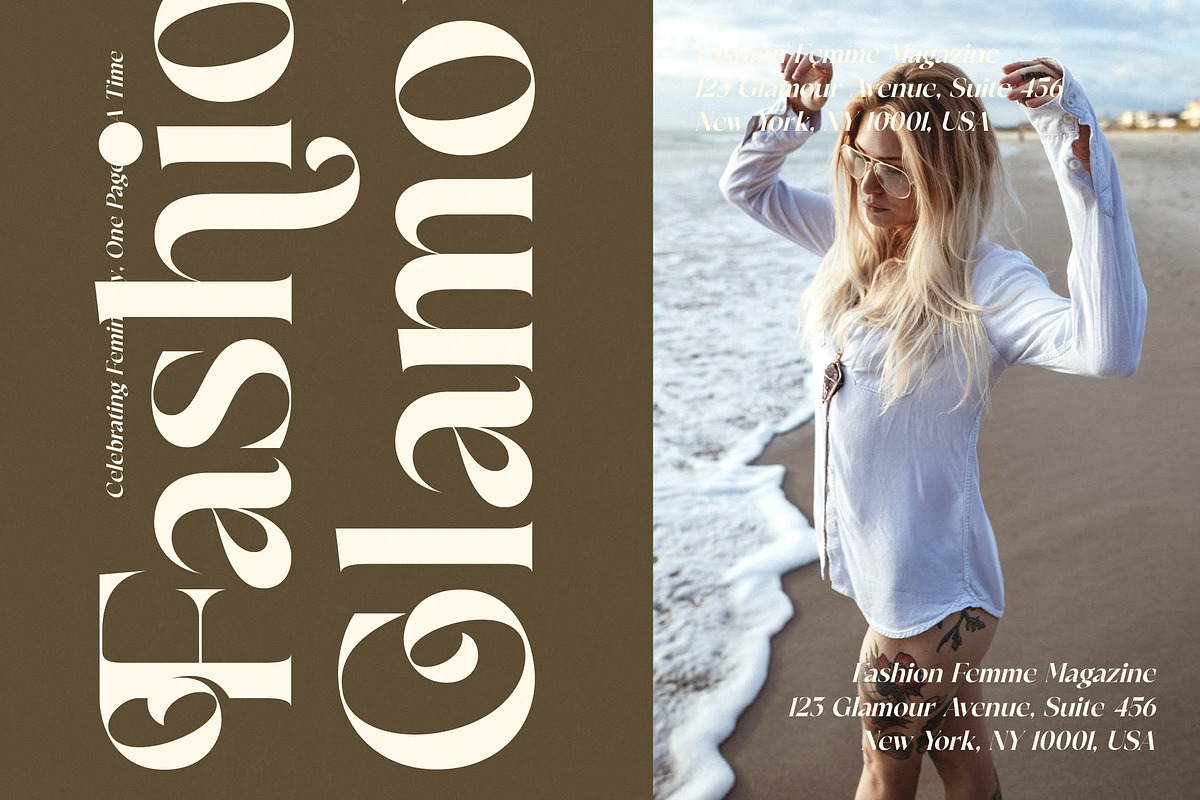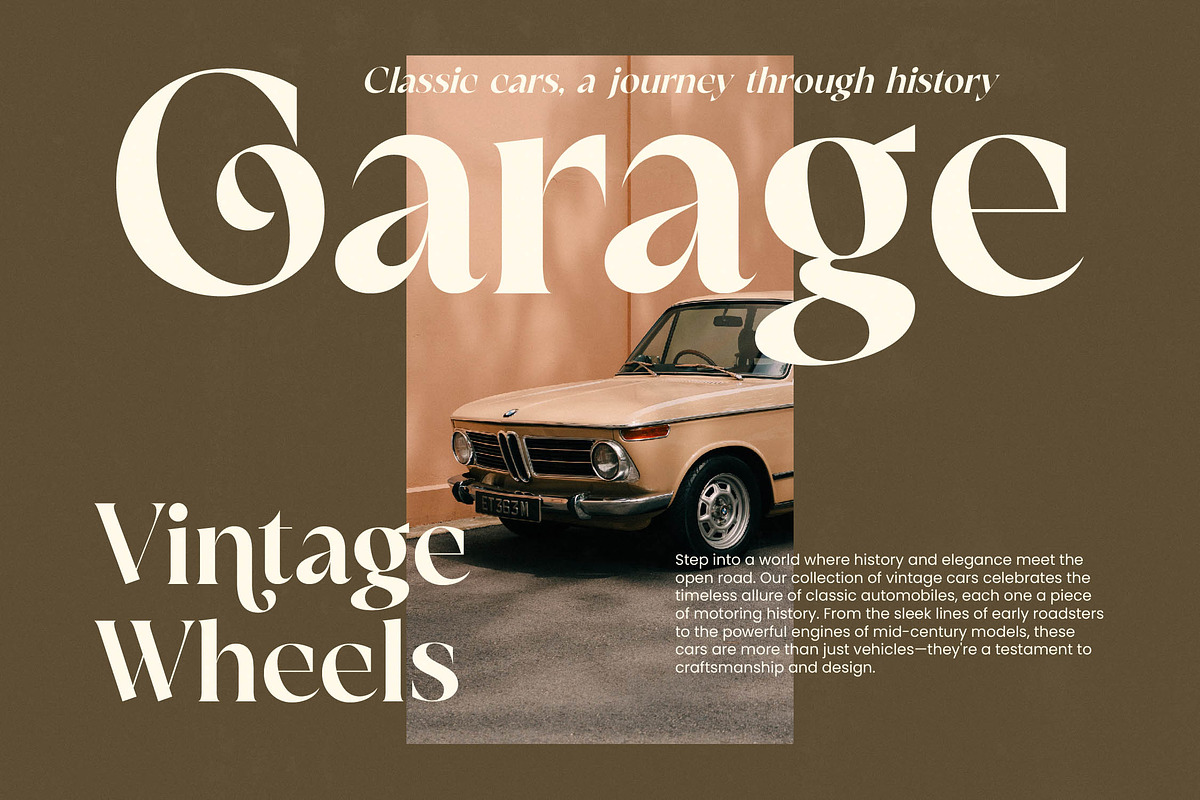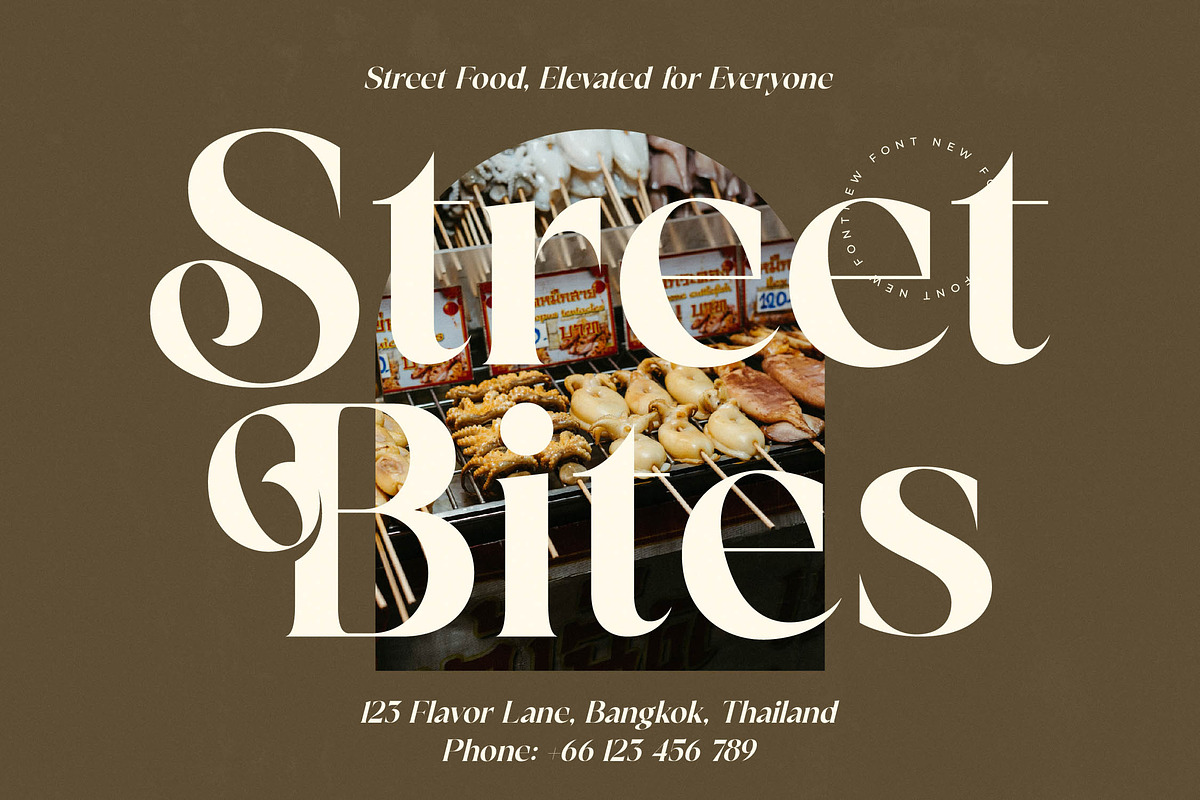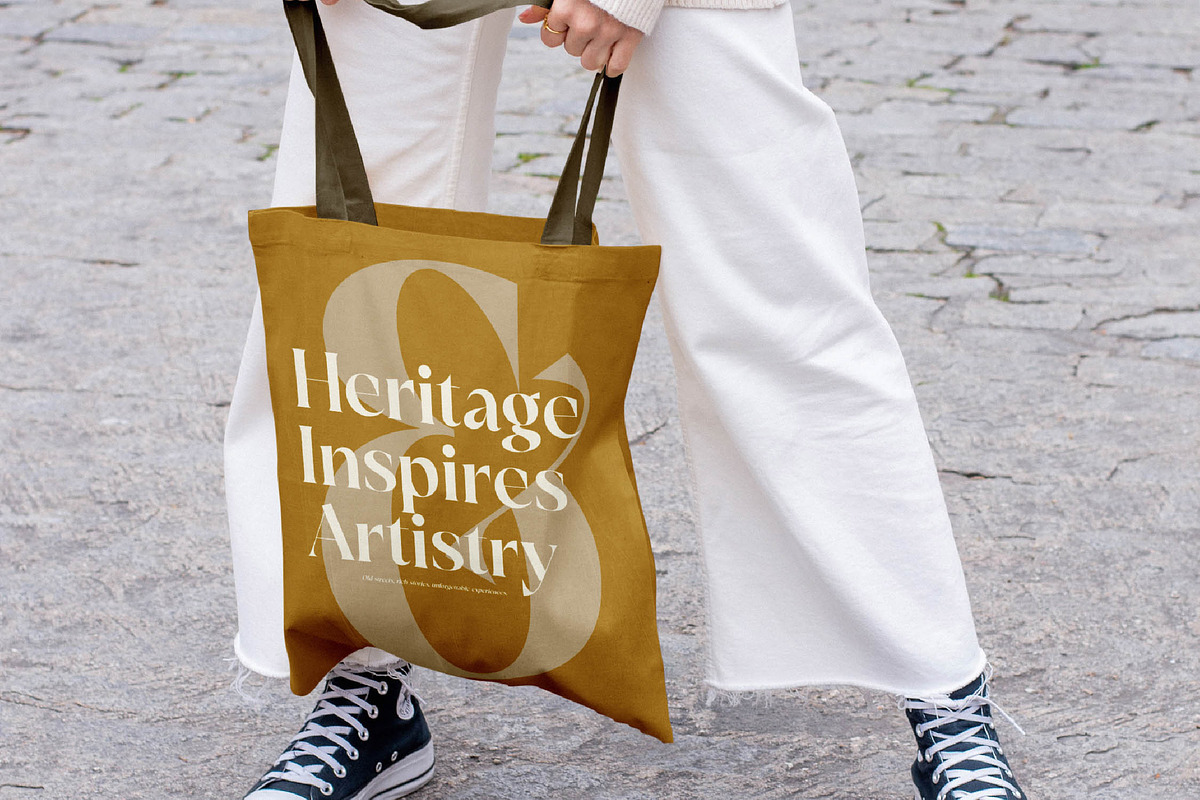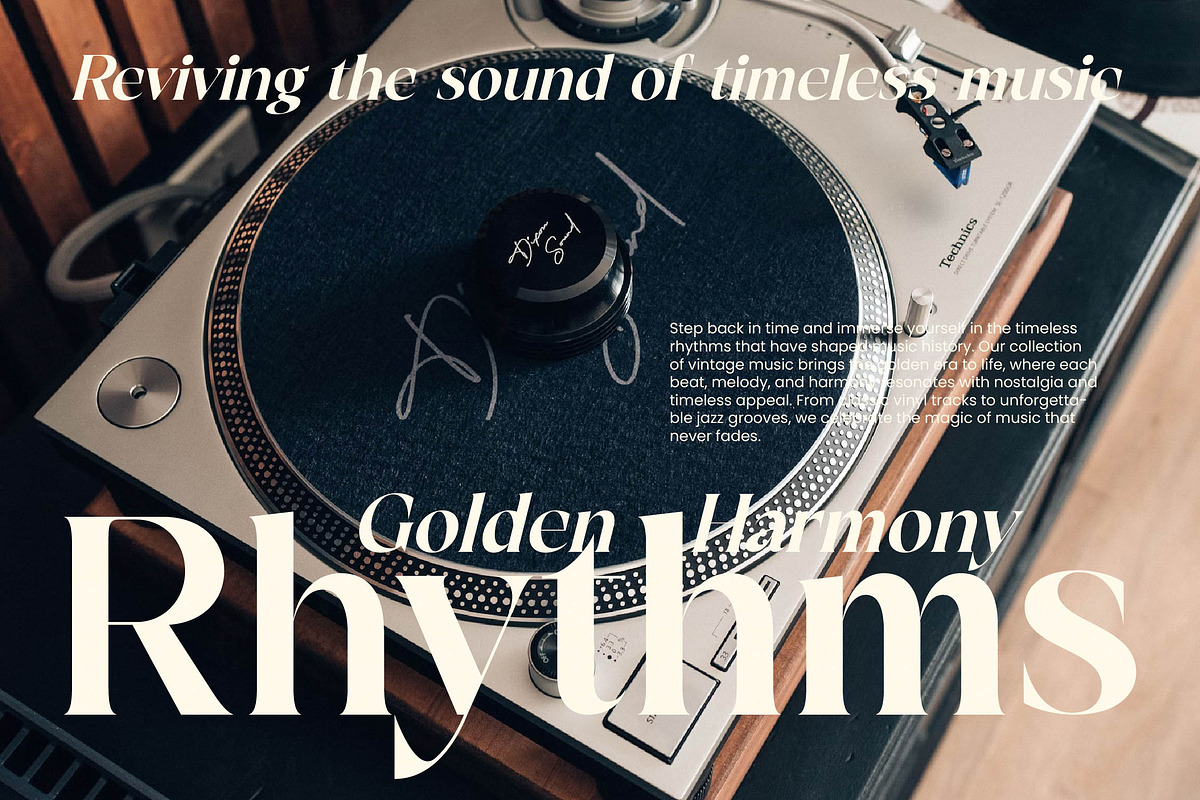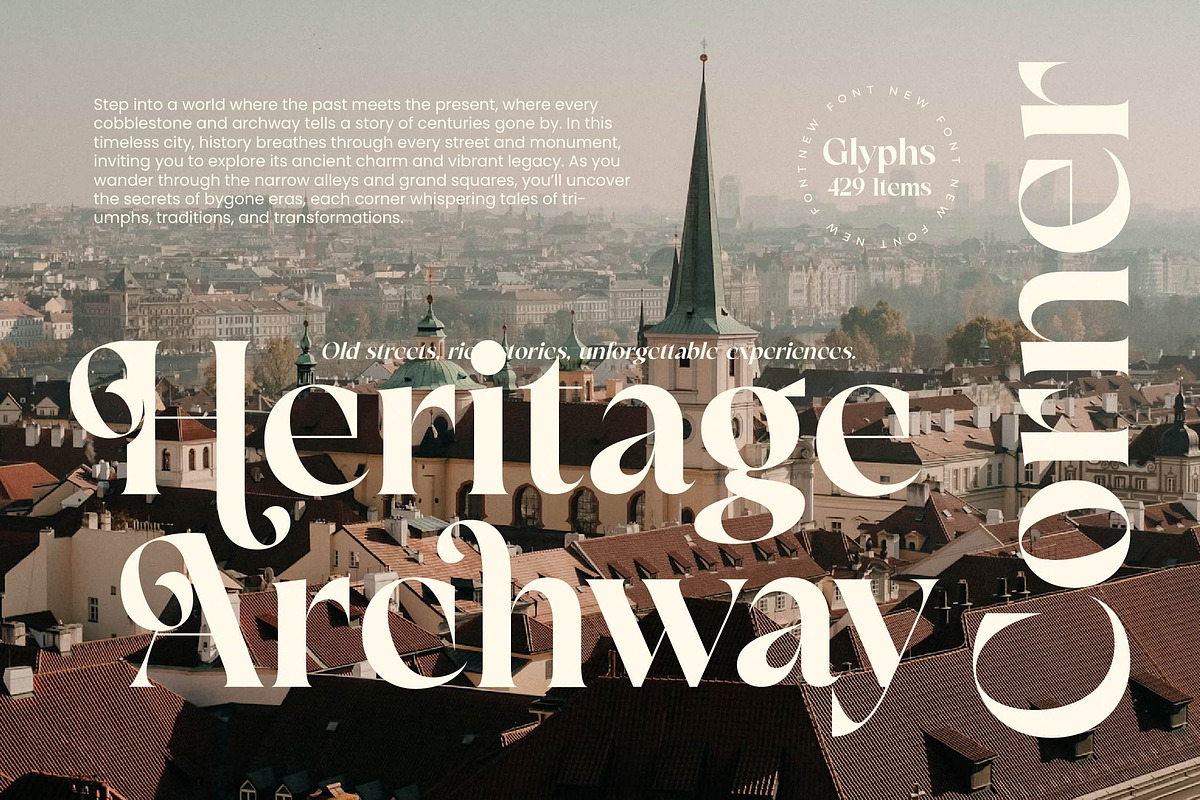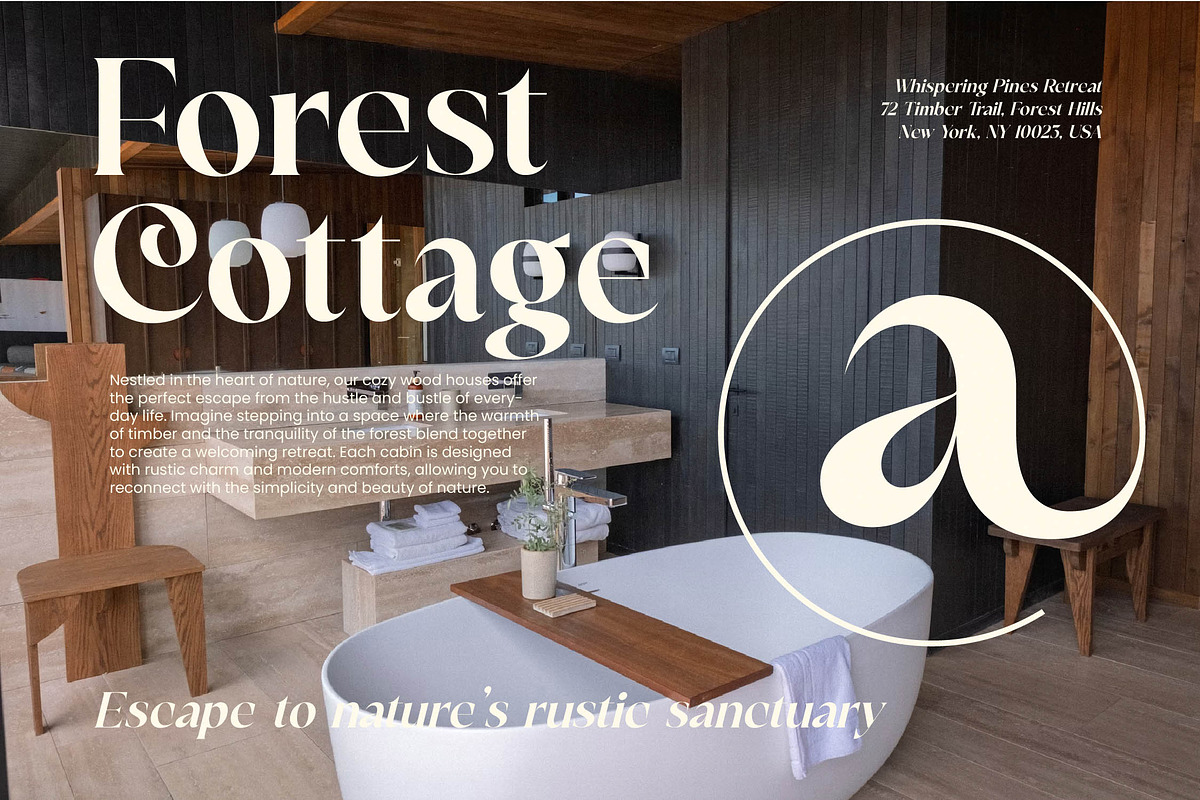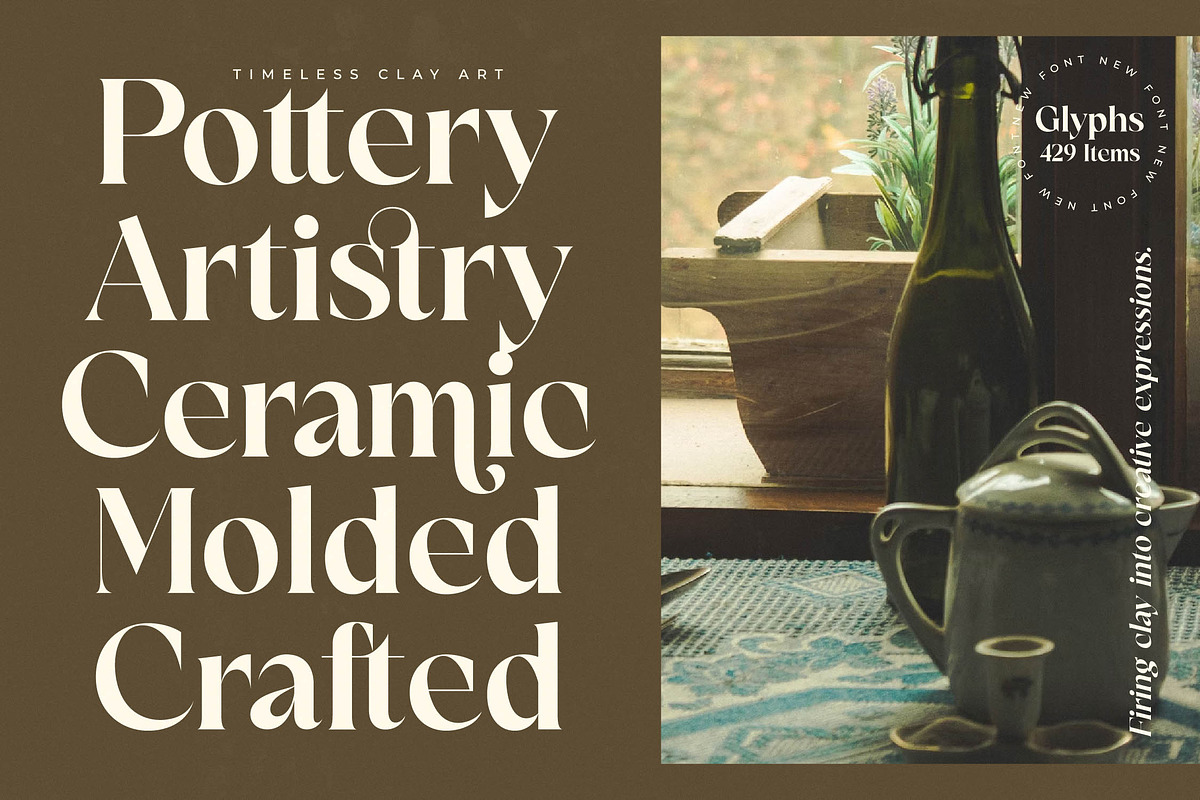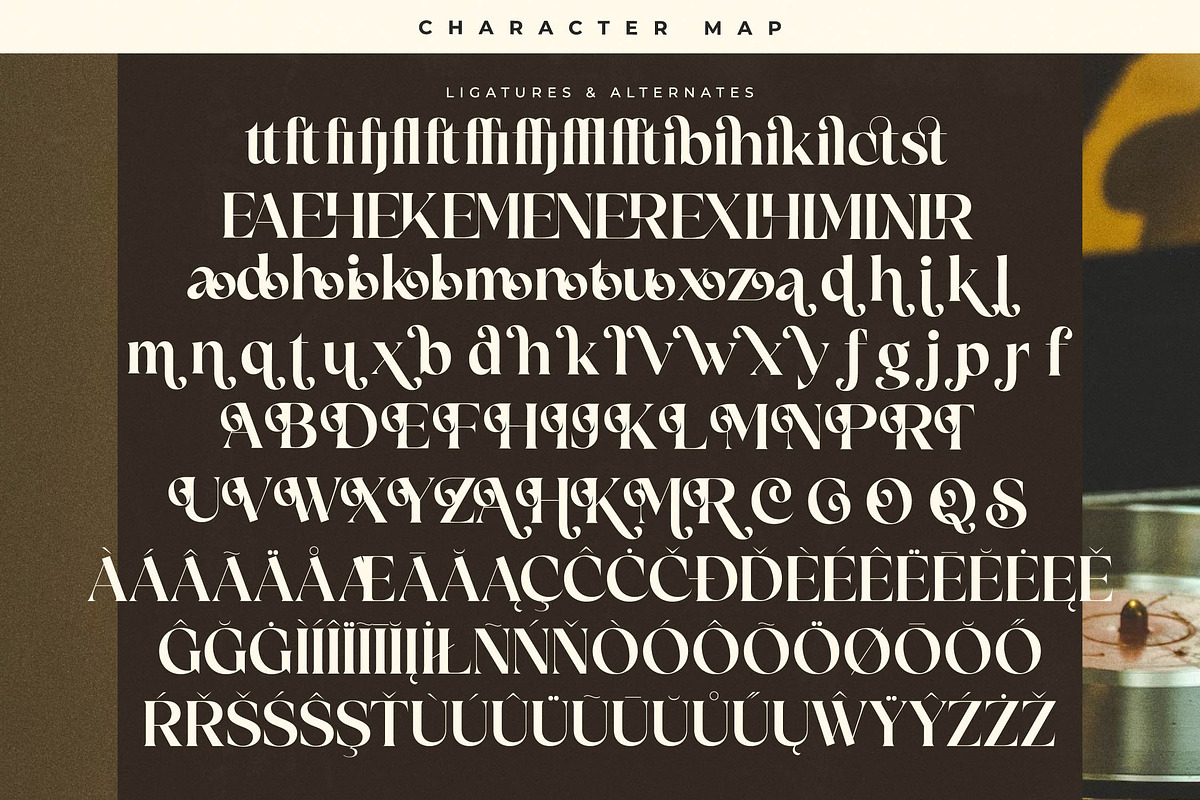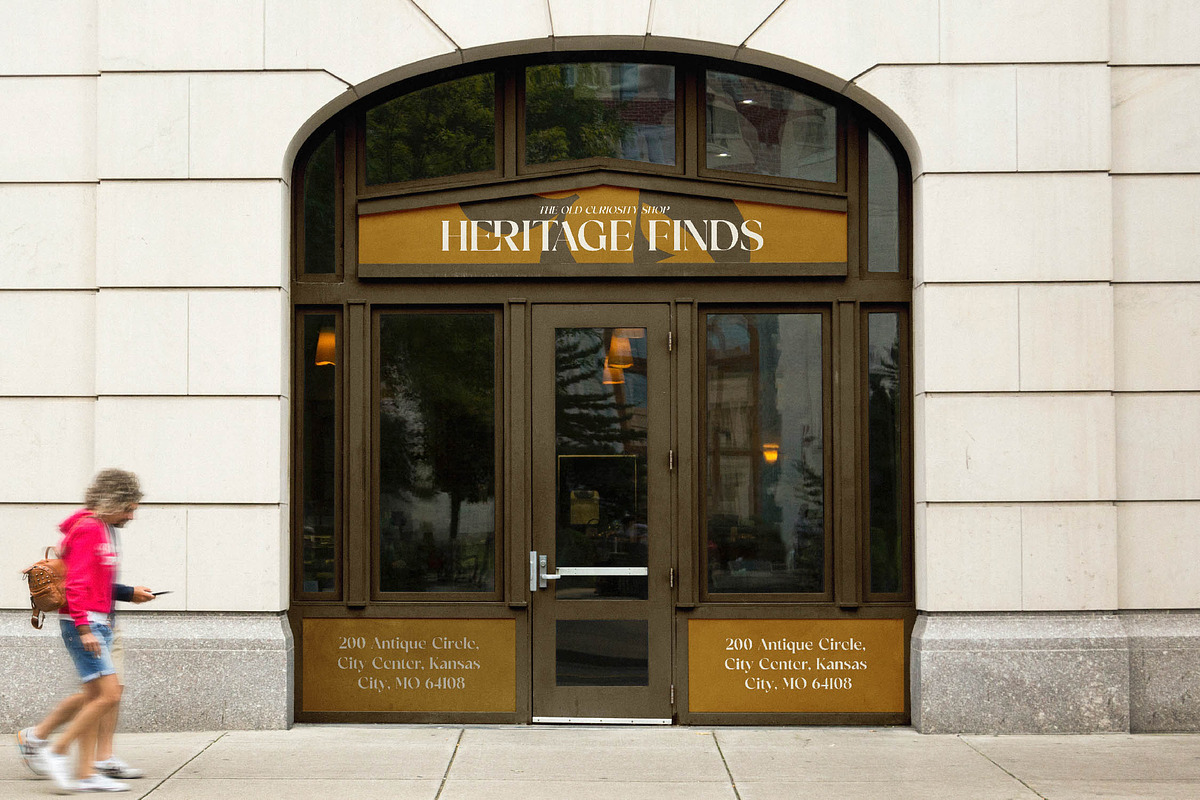
Victoria Culture Modern Serif
Discover the breathtaking elegance of Victoria Culture, a masterpiece of typography designed to elevate your creative vision with timeless grace. This font brings a touch of high-end sophistication to every character, ensuring your projects stand out with an unmistakable aura of prestige.
Drawing inspiration from the golden era of vinyl records and vintage high-fashion catalogs, this typeface bridges the gap between classic heritage and contemporary chic. It captures the soul of a refined lifestyle, where every curve and line tells a story of artisanal craftsmanship and aesthetic perfection.
The font exudes a modern serif display persona that commands attention through its luxury typography and high-contrast serif strokes. It is the quintessential editorial font for creators who demand a significant branding impact and want to communicate a message of exclusivity and refinement.
Perfectly aligned with the current modern serif trend, this typeface fulfills the growing demand for editorial display fonts that offer more than just legibility. It leans into the move toward character-driven typography, providing a unique visual identity that feels both fresh and established in the ever-evolving design landscape.
Whether you are working on a premium logo design or a comprehensive branding system, this font delivers exceptional results across editorial layouts and luxury packaging. It is also an ideal choice for high-end wedding invitations and fashion lookbooks that require a touch of delicate romance and strength.
This extensive toolkit includes a rich set of ligatures and creative alternates that allow for endless customization and unique word shapes. Furthermore, it features elegant swashes and full multilingual support with wide-ranging international characters to ensure your message reaches a global audience with ease.
- Ligature 27 Alternate 70